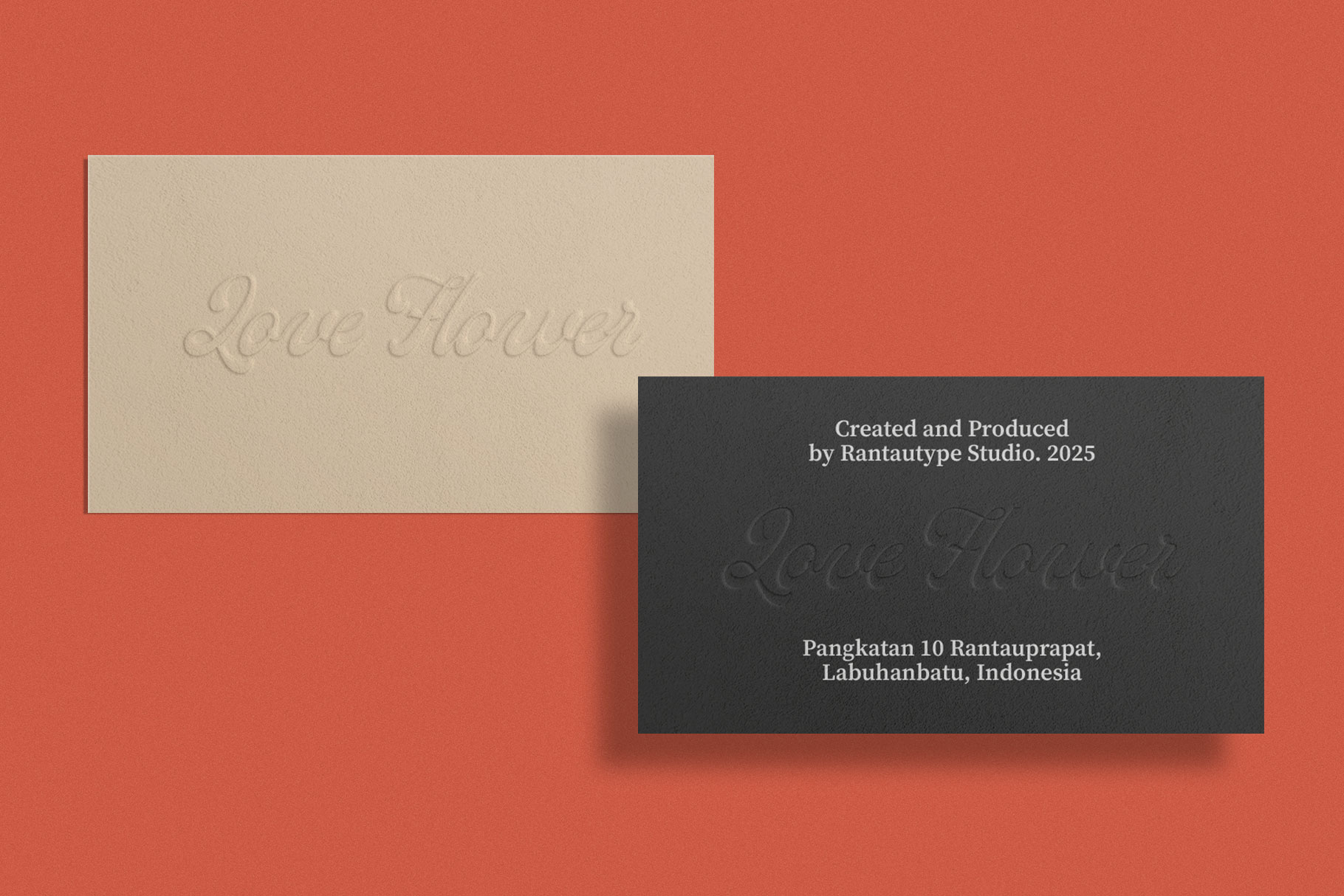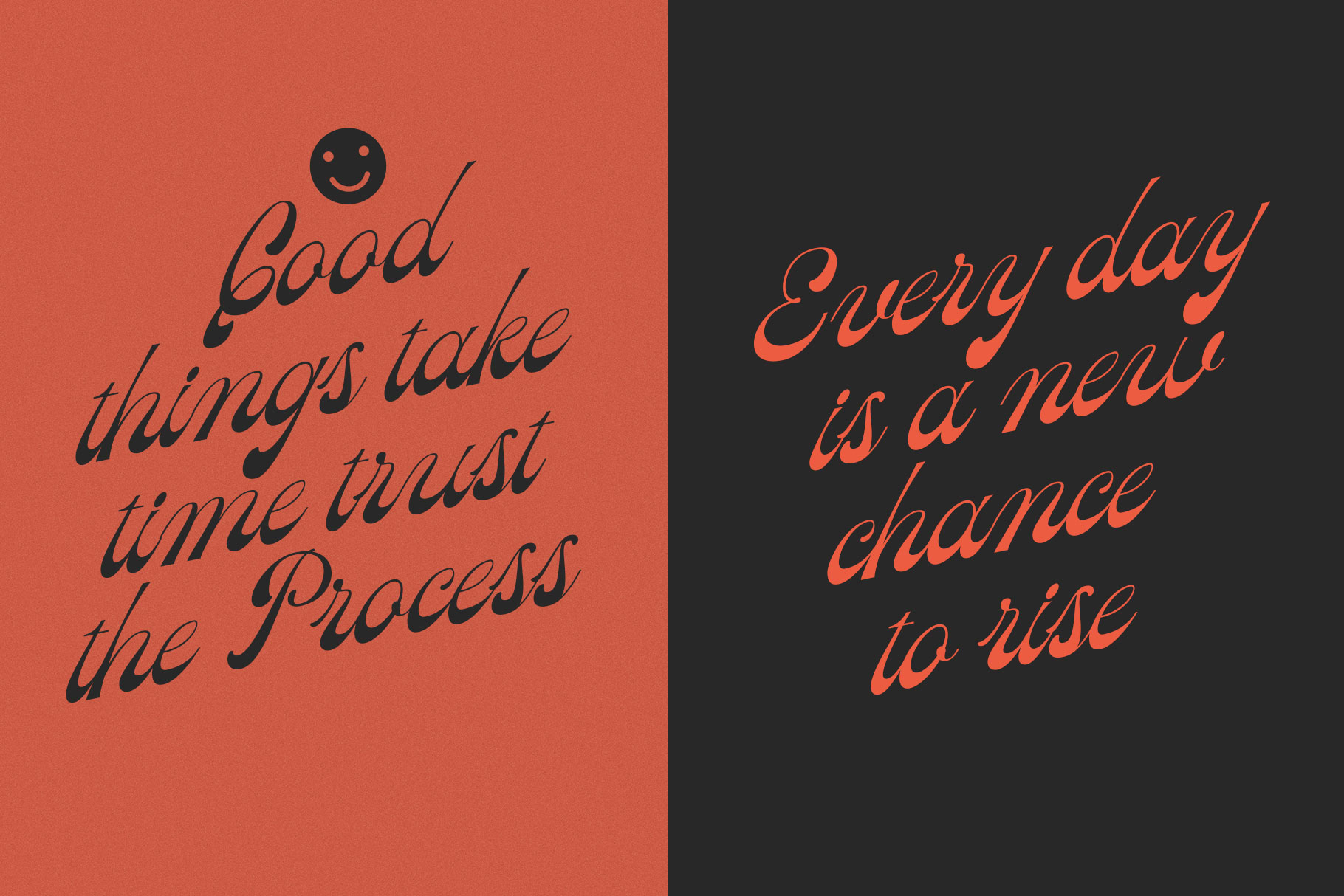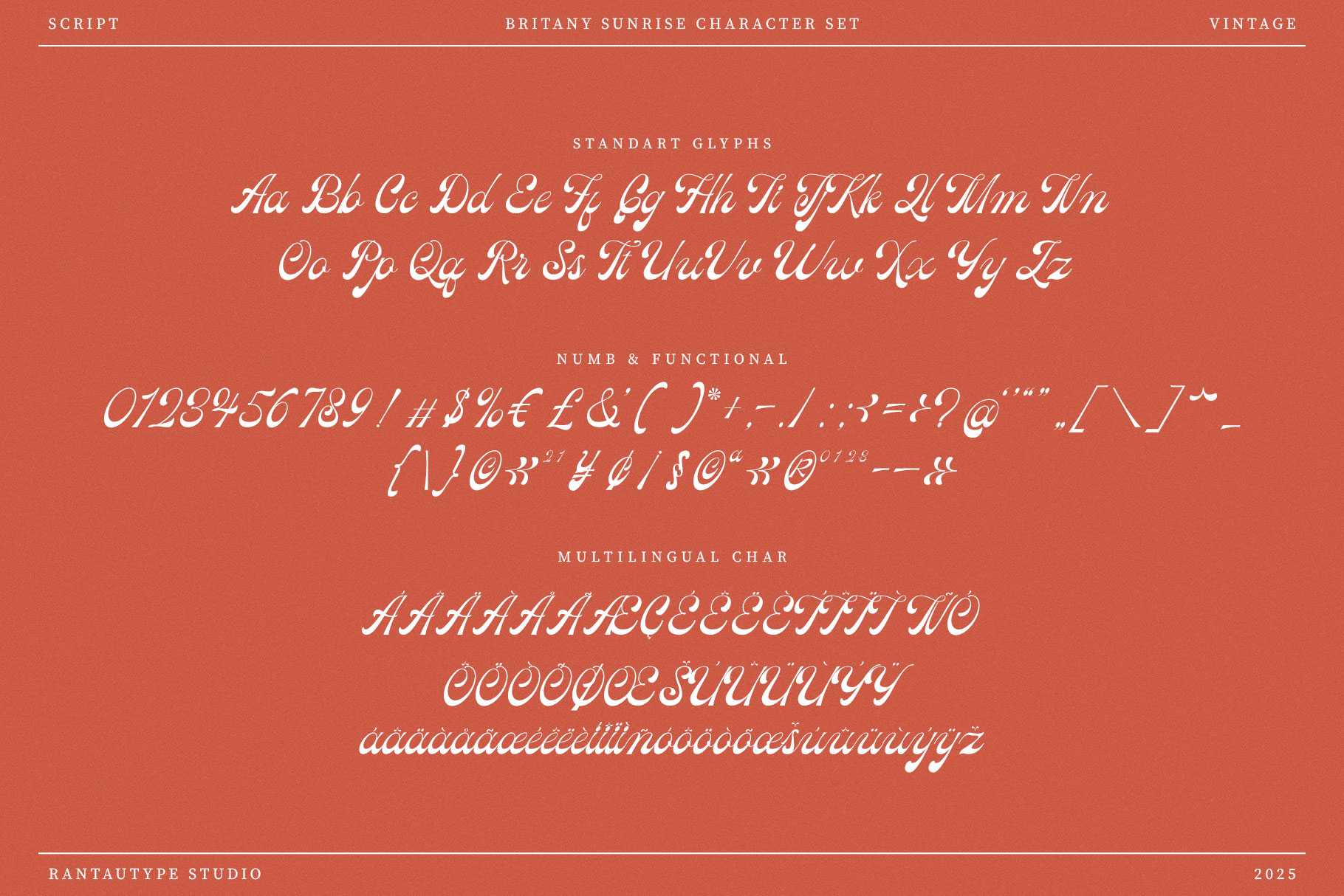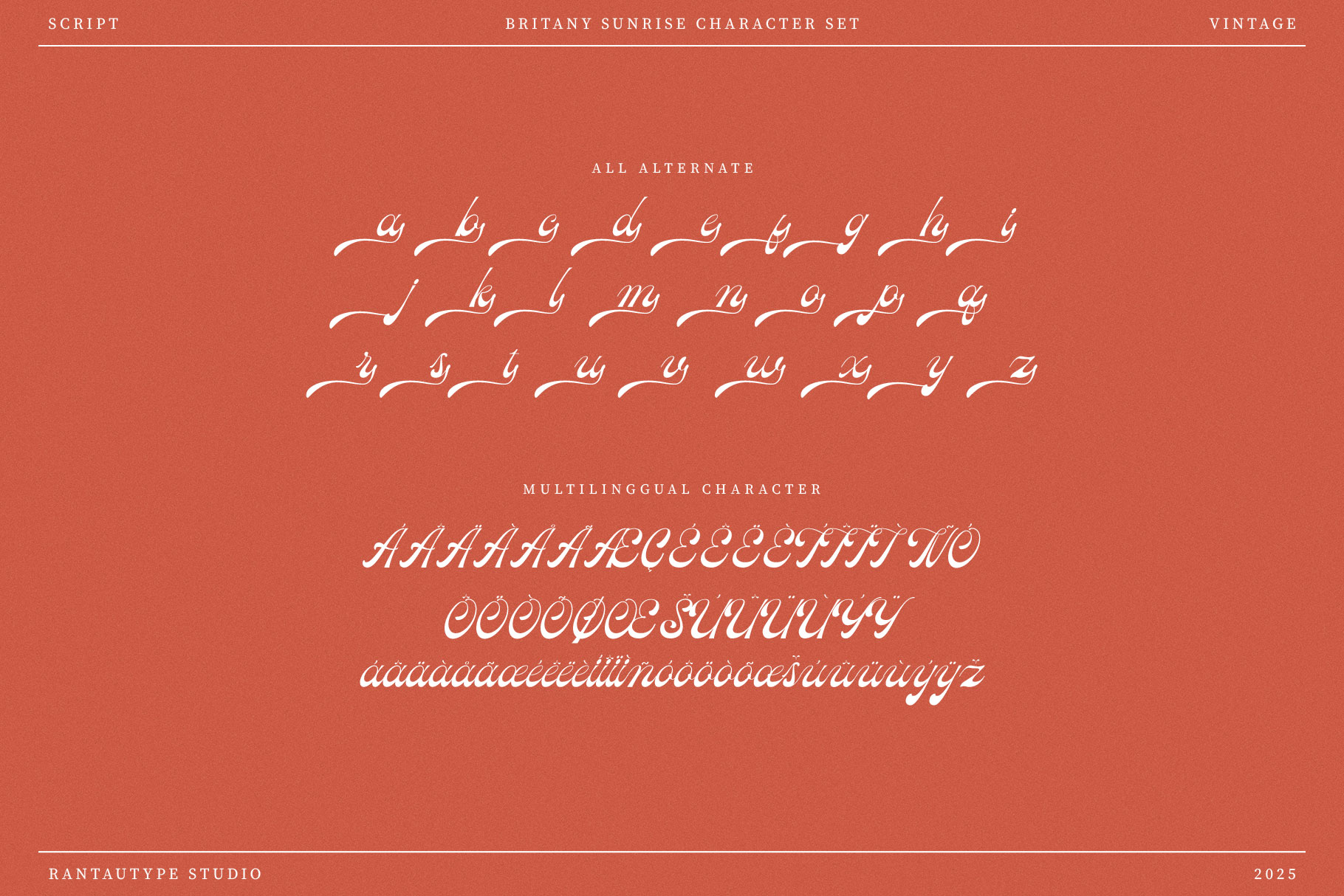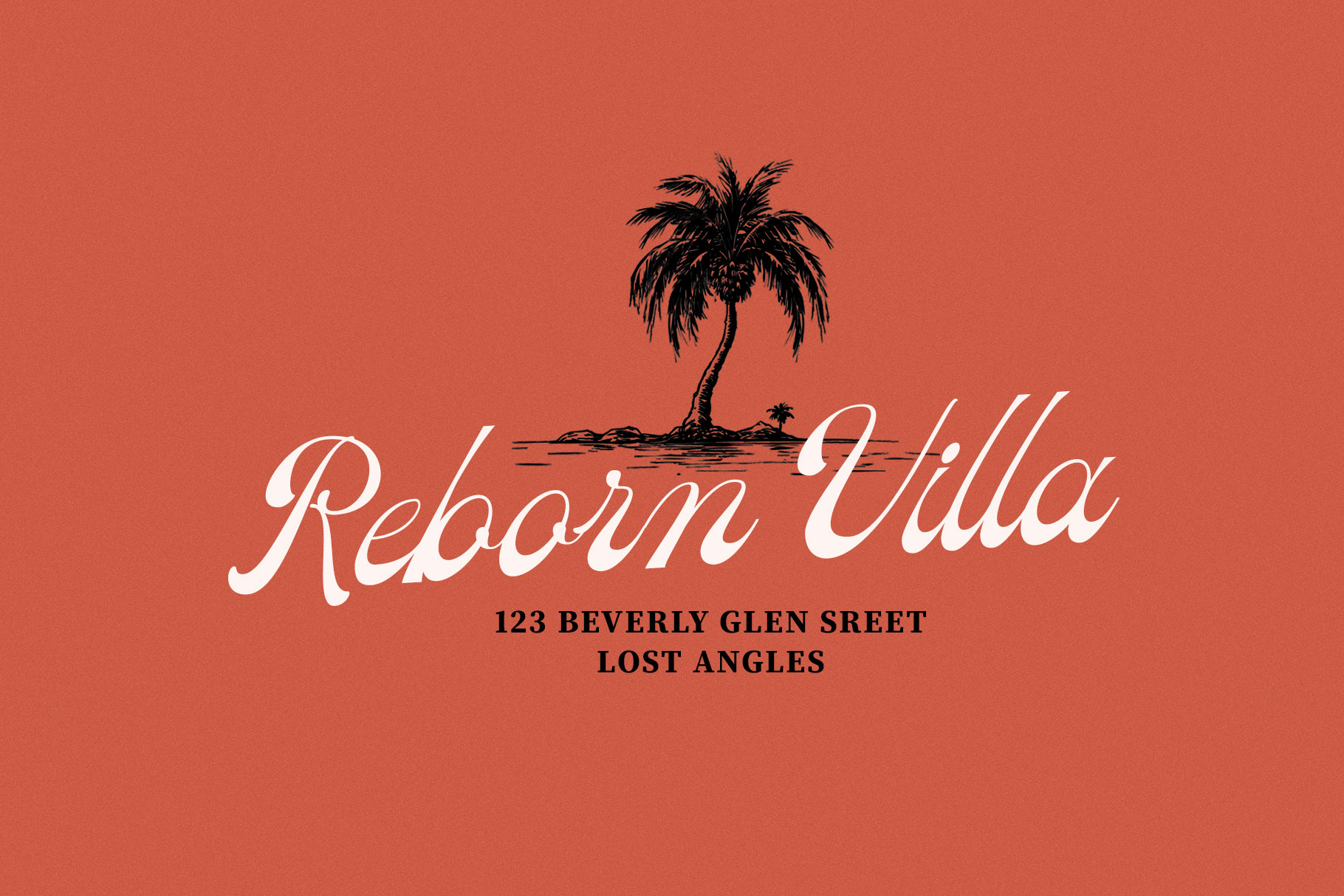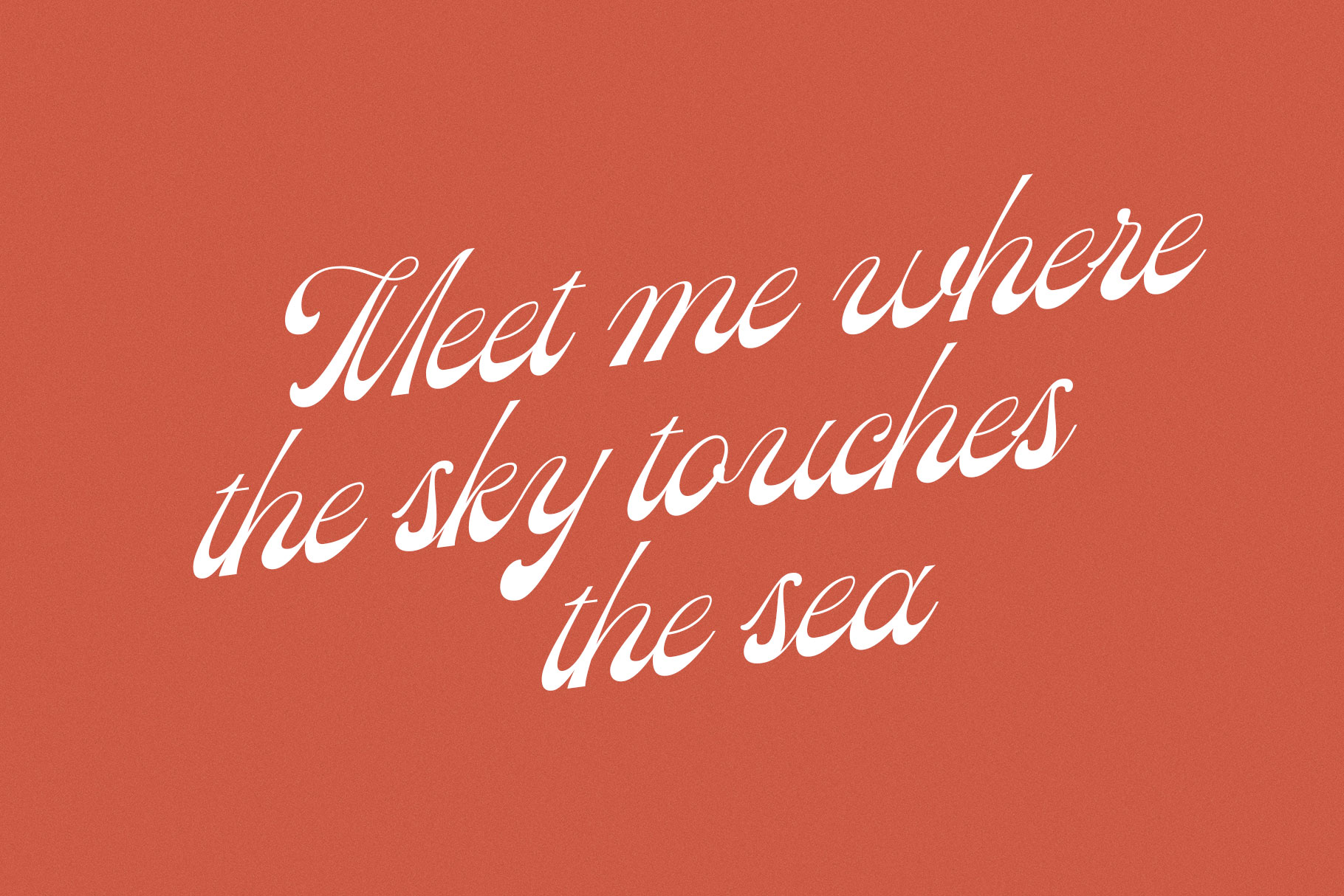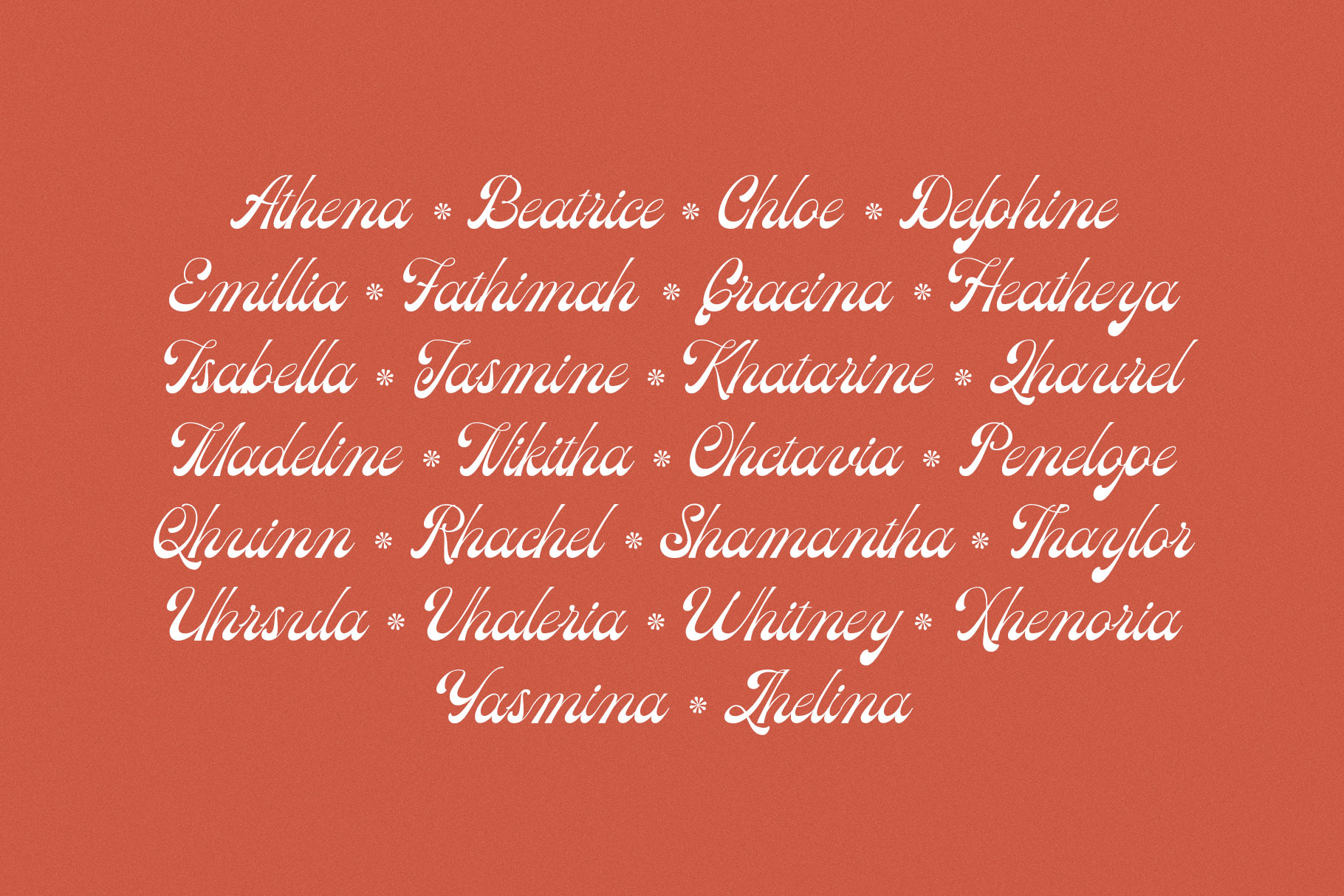
Britany Sunrise Vintage Script Font
Britany Sunrise is vintage script font made by rantautype studio. Britany Sunriseis a perfectly choice for any creative endeavor, creating, modern, lifestyle design such as logotype, title, cover, branding, invitations, wedding designs, display and magazine, social media posts, advertisements, printed quotes, product packaging, corporate brand, product designs, labels, photography, watermarks, special events and any other project with modern touch.